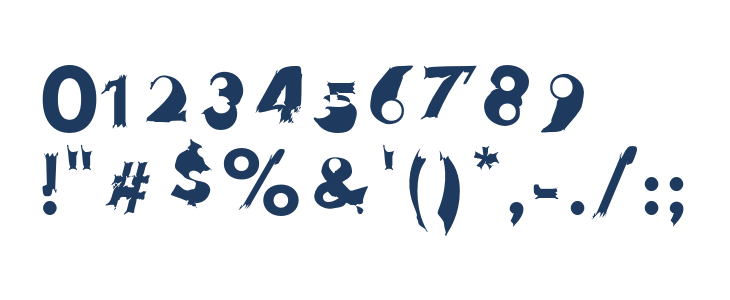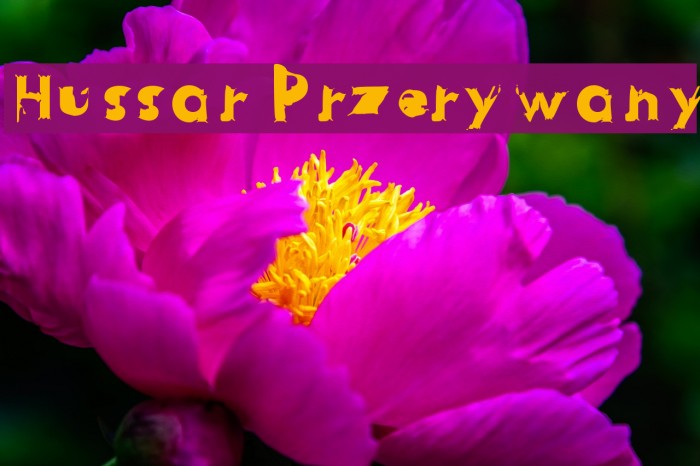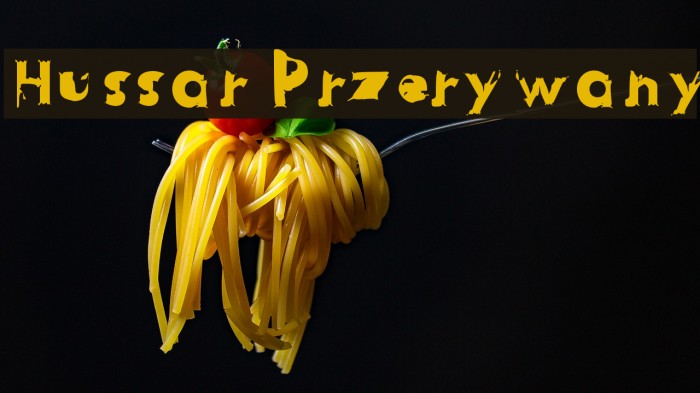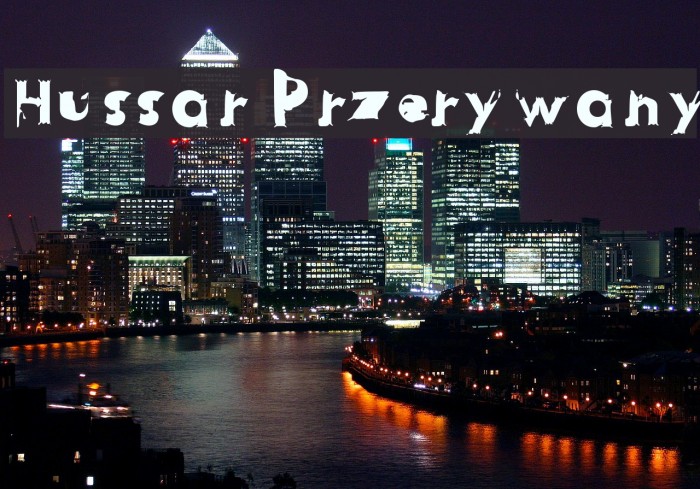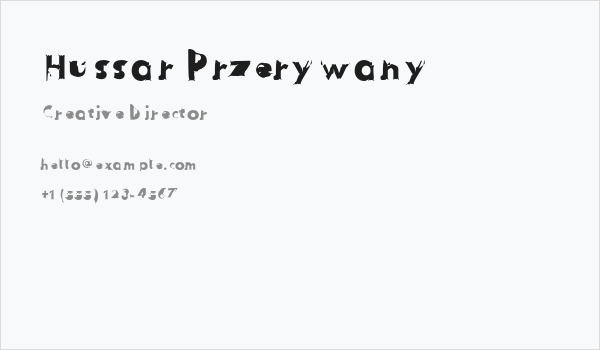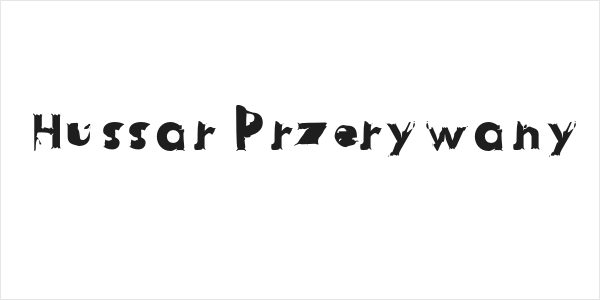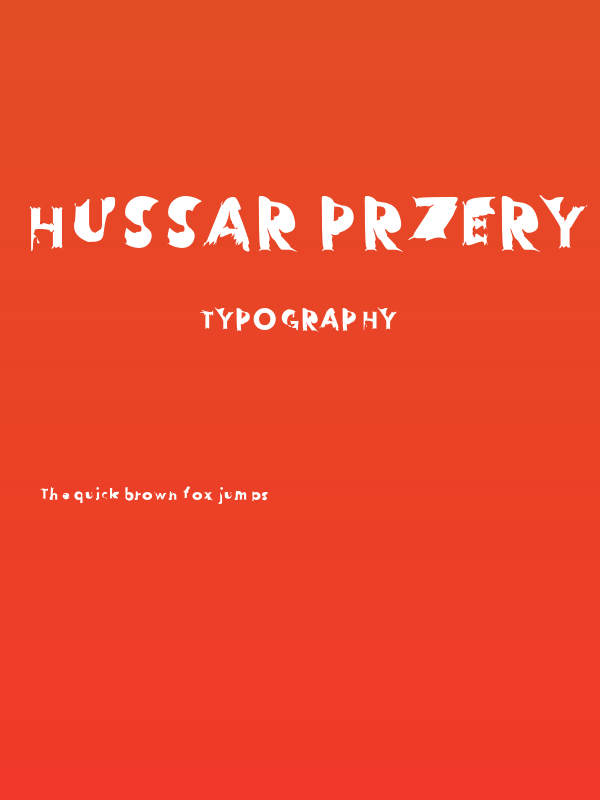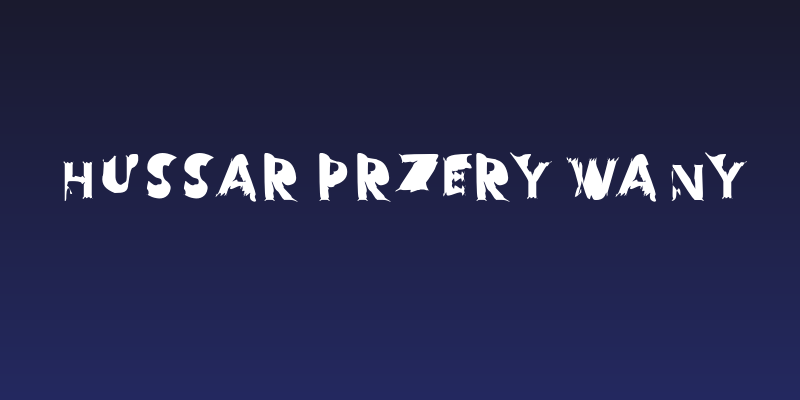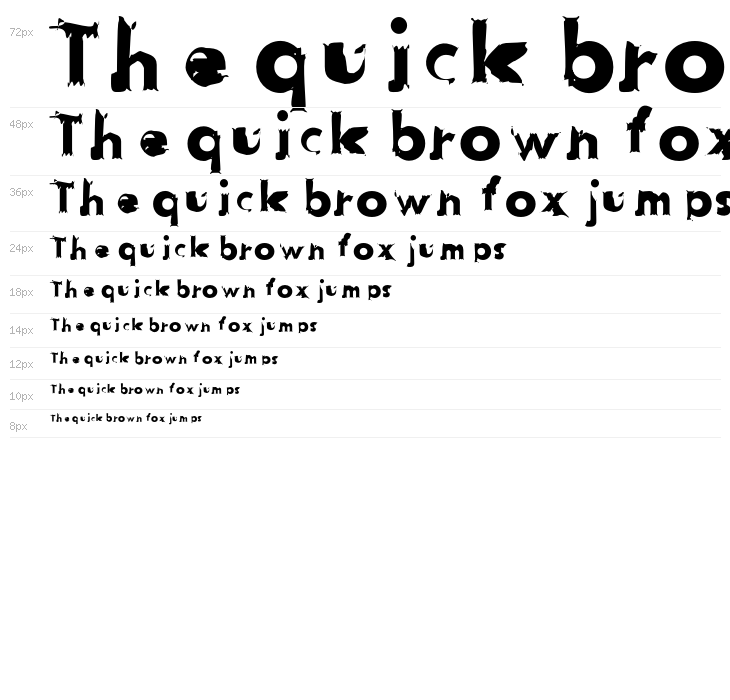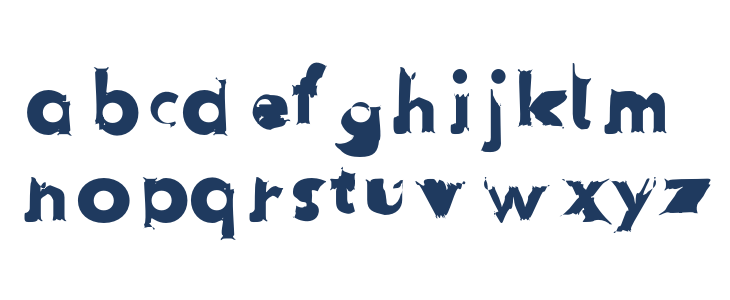
Hussar Przerywany Font
Hussar Przerywany Description
This font features a bold and dynamic style with a distressed, grunge-like appearance. The characters are designed with irregular edges and a rough texture, giving them a unique, edgy look. The uppercase and lowercase letters maintain a consistent style, while the numbers and special characters complement the overall aesthetic. This font's design is eye-catching and unconventional, making it suitable for projects that require a bold statement or an artistic touch.
| Proposed Projects | Ideal for posters, album covers, event flyers, and creative branding projects. |